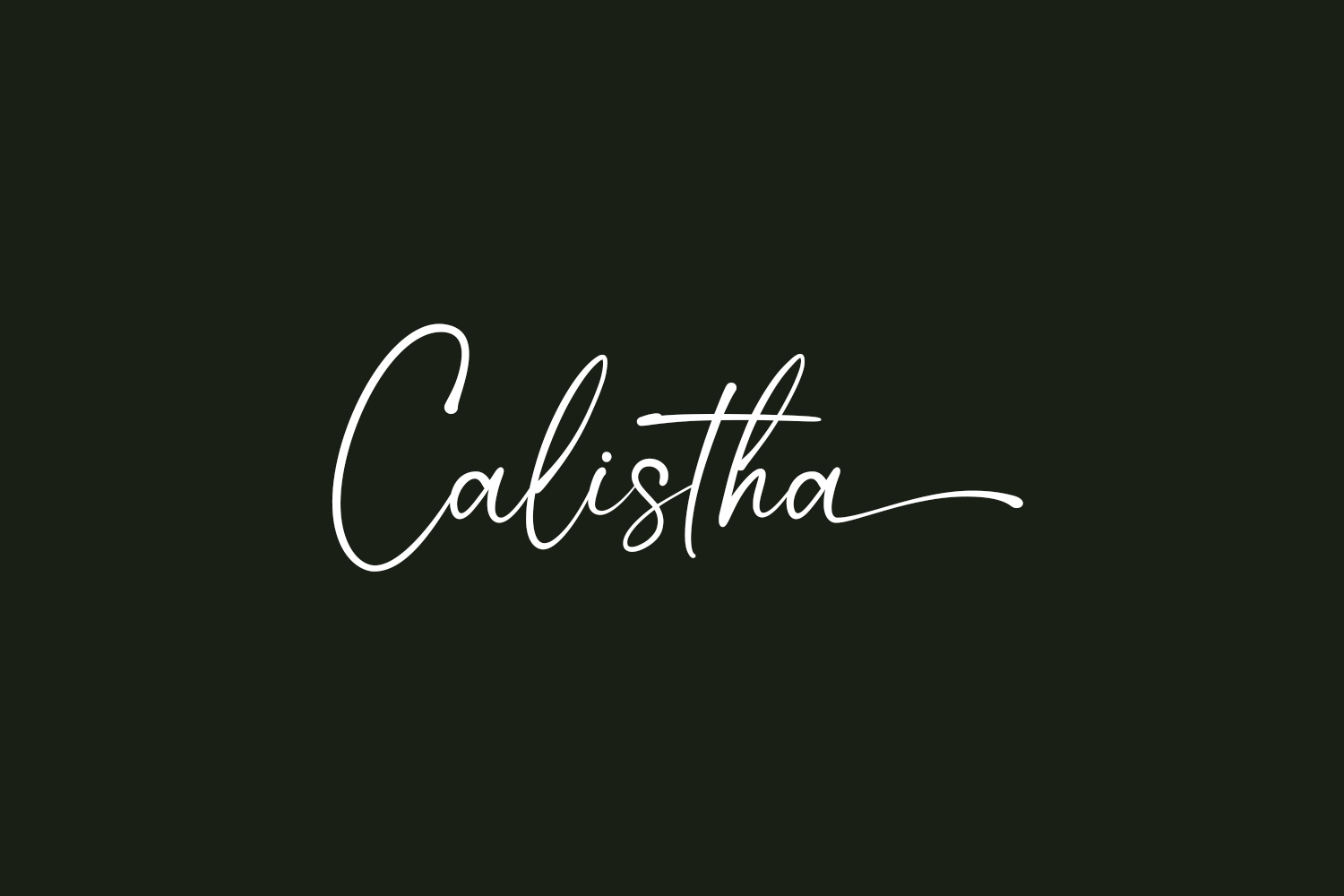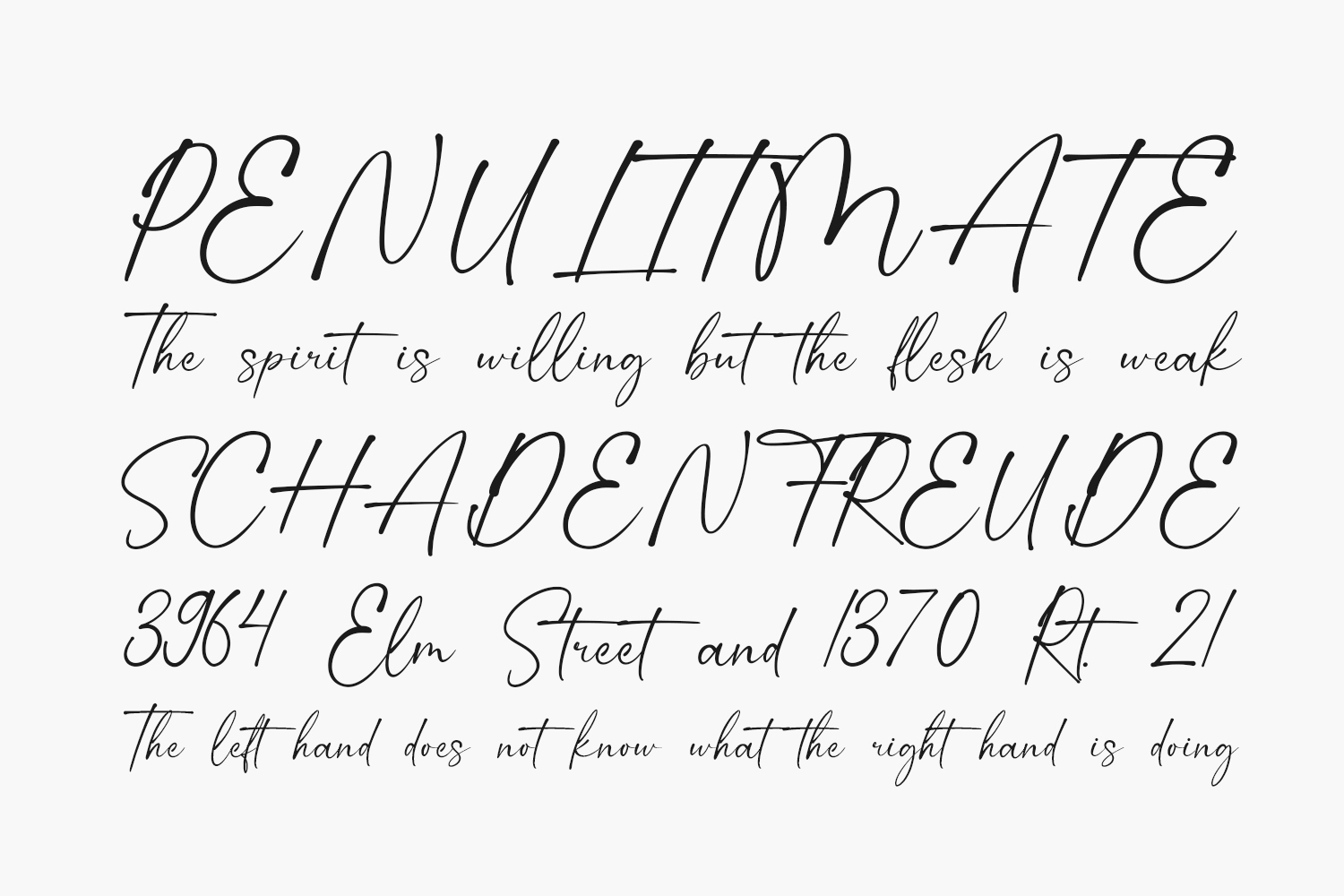
Calistha Free Font is a thin lettered, lovely and fashionable script font. Calistha Free Font was designed by Graphix Line Studio and is free for personal use only. Please purchase the full version for commercial use.